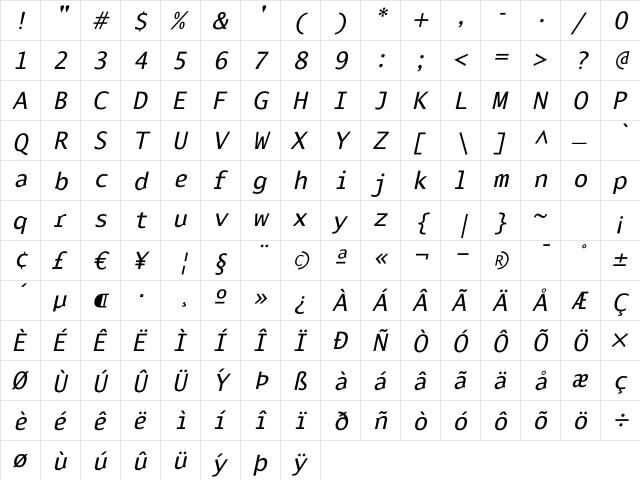
Betabet SansItalic Regular
Design Context for Betabet SansItalic Typeface
Betabet SansItalic offers clean, dependable letterforms without strong stylistic allegiance, making it a practical choice for designers who need flexibility. Its italic angle brings a sense of urgency and motion to the letterforms.
Pro Tip: Try Betabet SansItalic for annotation and caption copy alongside an upright companion — the contrast in angle creates a dynamic but ordered typographic system.